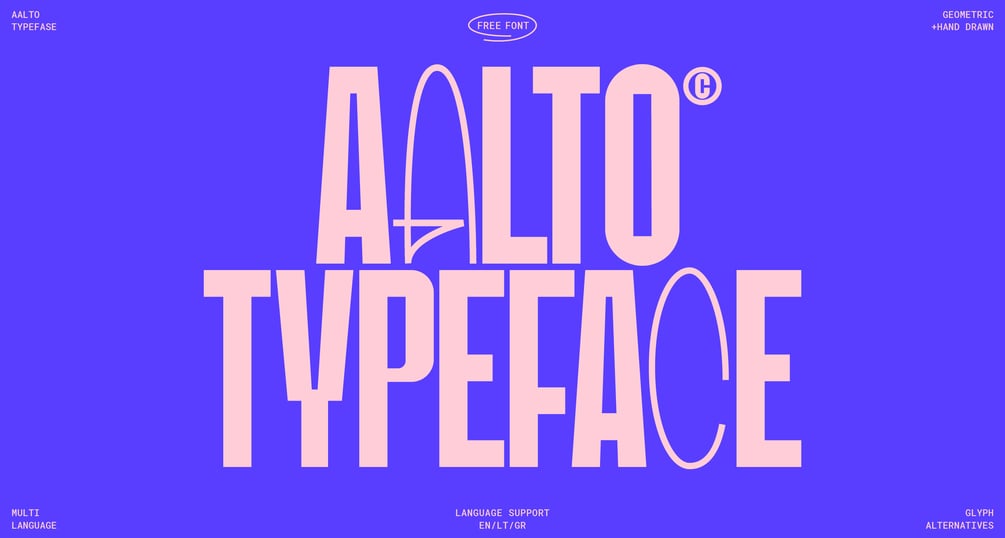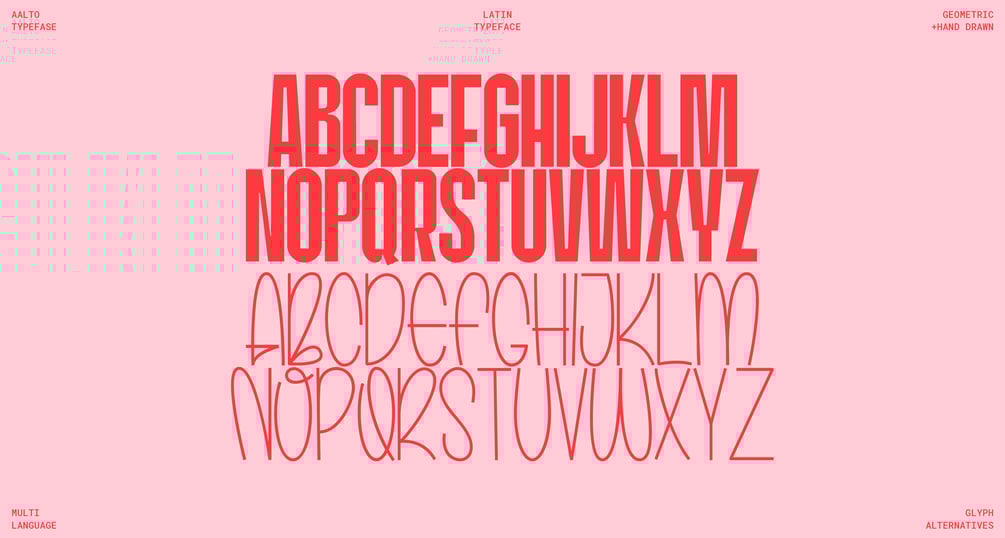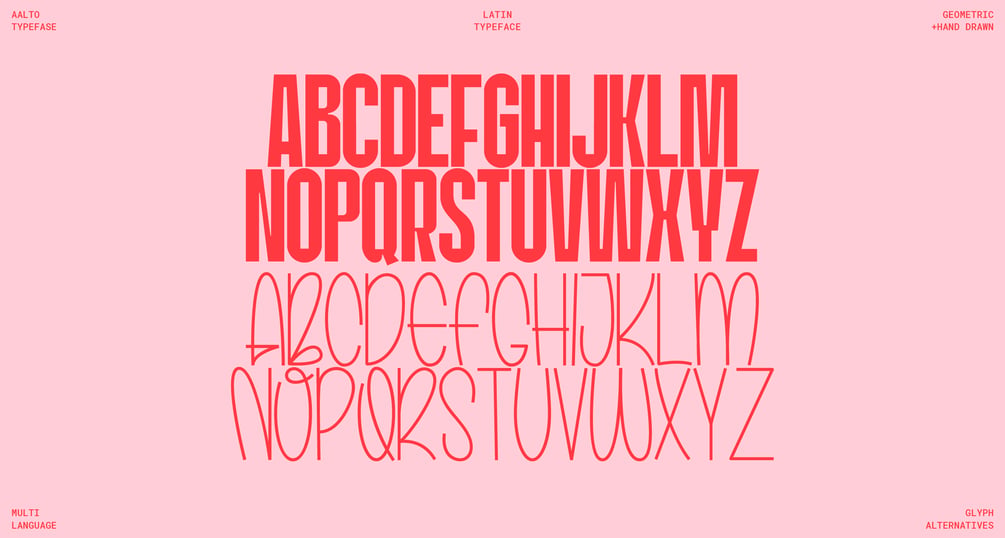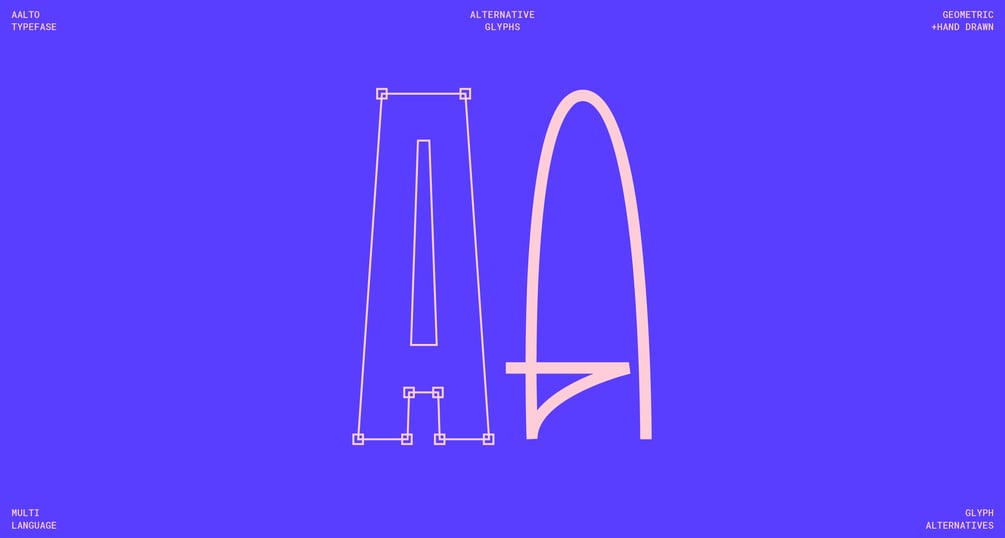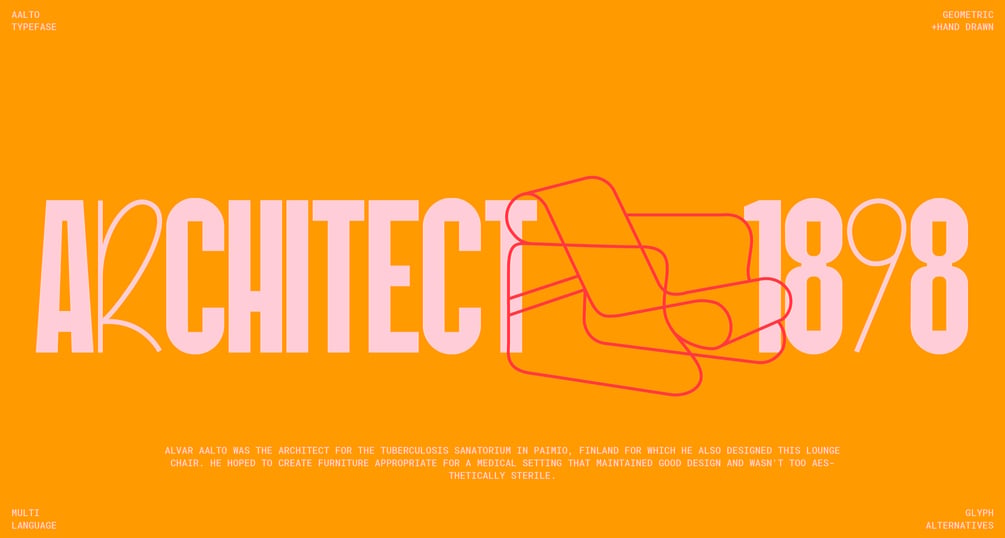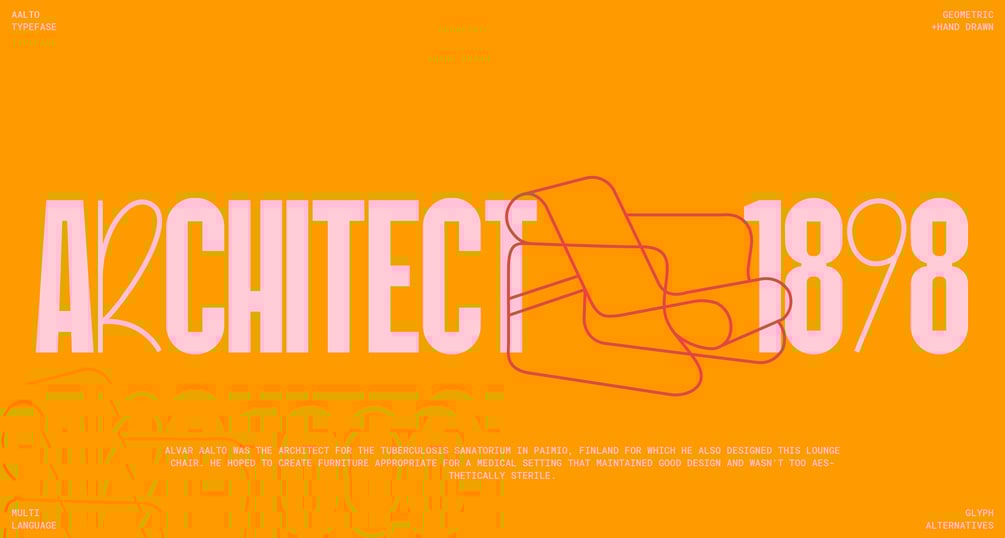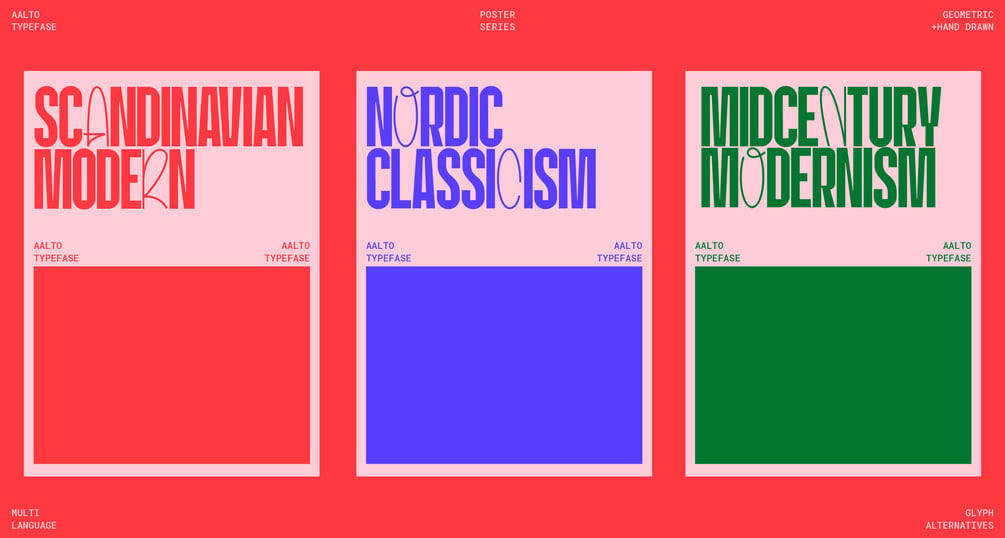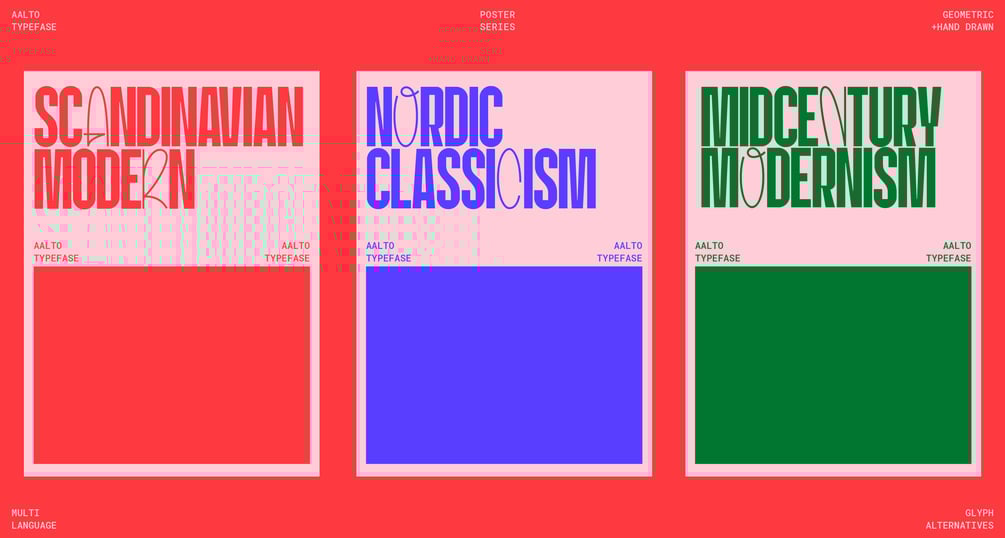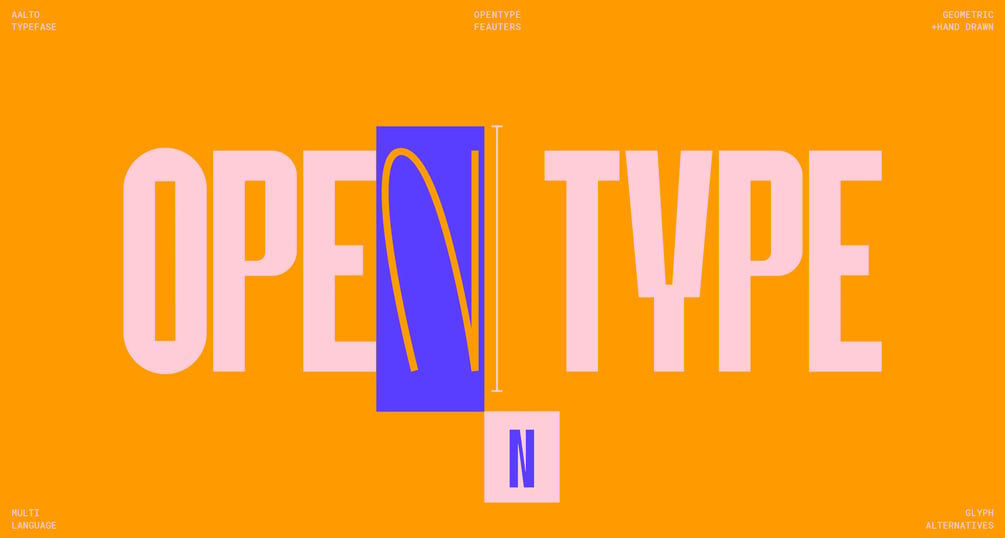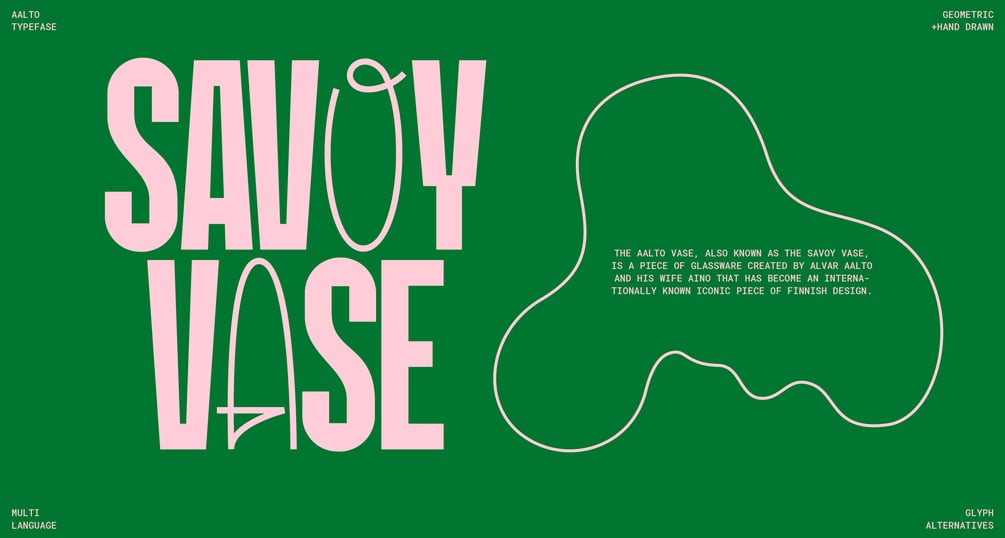
Aalto OpenType Display Font
Inspired by the legendary Finnish architect and designer Hugo Alvar Henrik Aalto, the Aalto OpenType font captures the essence of Aalto's timeless aesthetic and innovative spirit. This OpenType Display Font seamlessly blends organic forms with clean, modern lines, making it perfect for both print and digital media.
Features:
- Elegant Design: Reflects the sophistication and simplicity of Aalto's architectural masterpieces.
- Versatile Use: Ideal for editorial design, branding, web design, and more.
- Complete Character Set: Includes a comprehensive range of characters and symbols for diverse typography needs.
- OpenType Features: Offers advanced typographic capabilities like ligatures, alternate characters, and stylistic sets.
- Language support: Latin, Greek
Aalto OpenType is more than just a font; it’s a tribute to one of the most influential designers of the 20th century. Perfect for designers, architects, and anyone looking to add a touch of elegance and innovation to their projects.